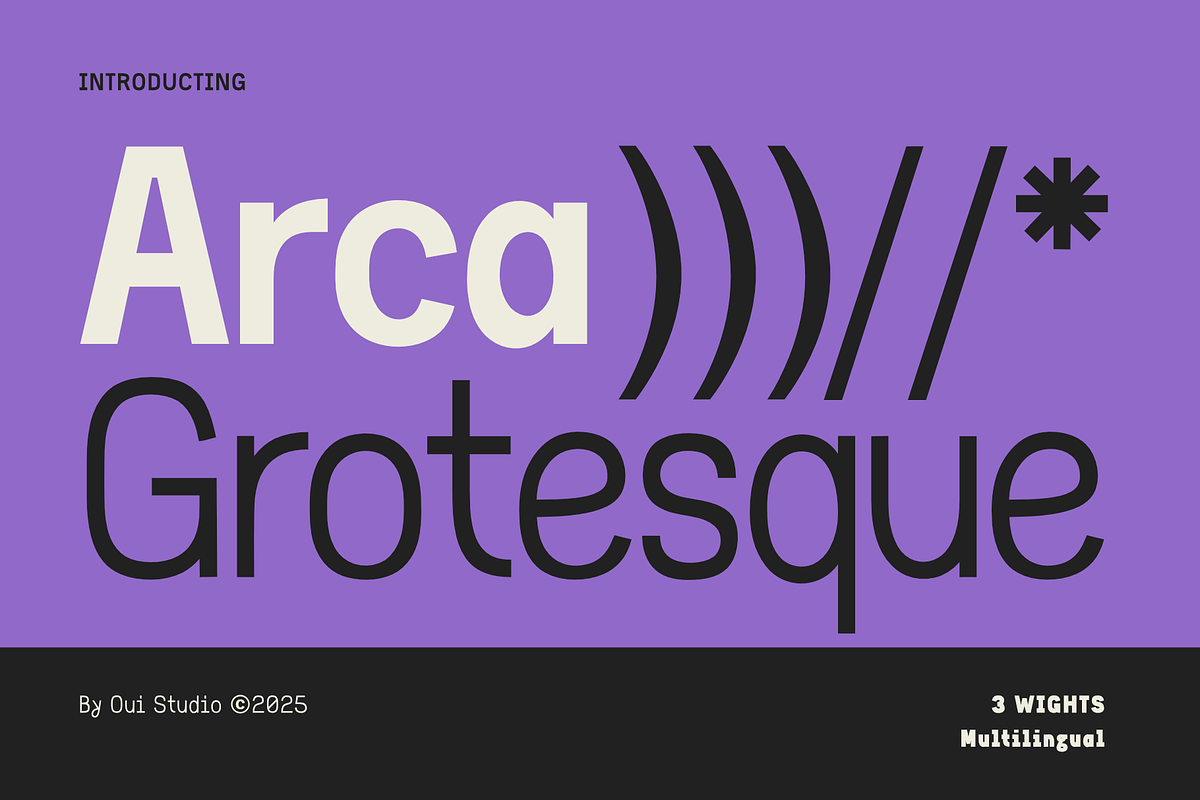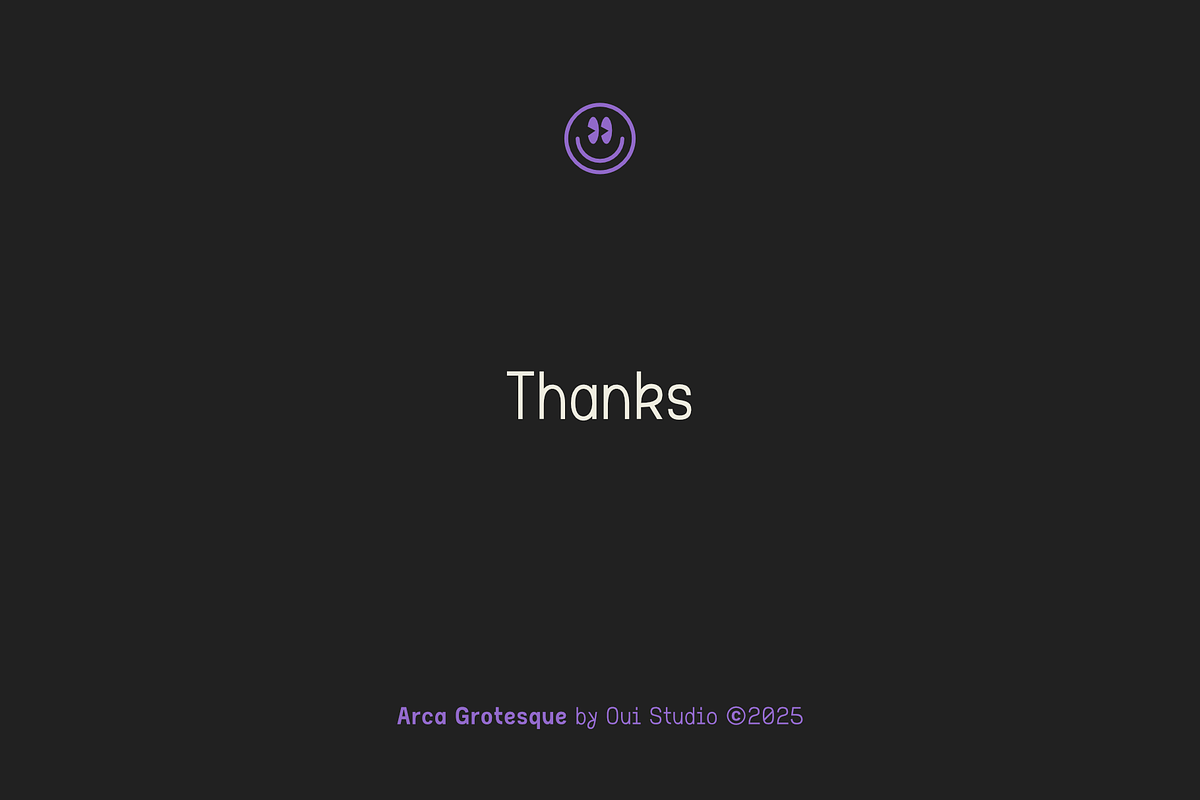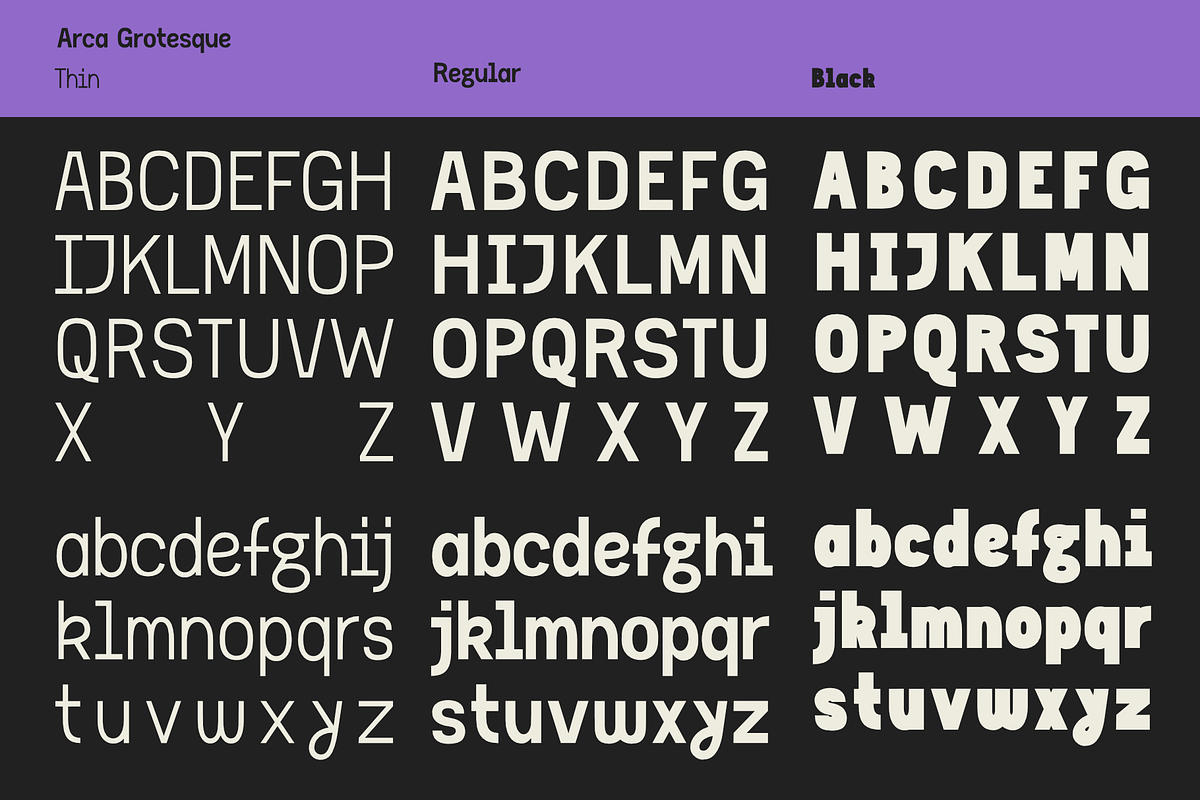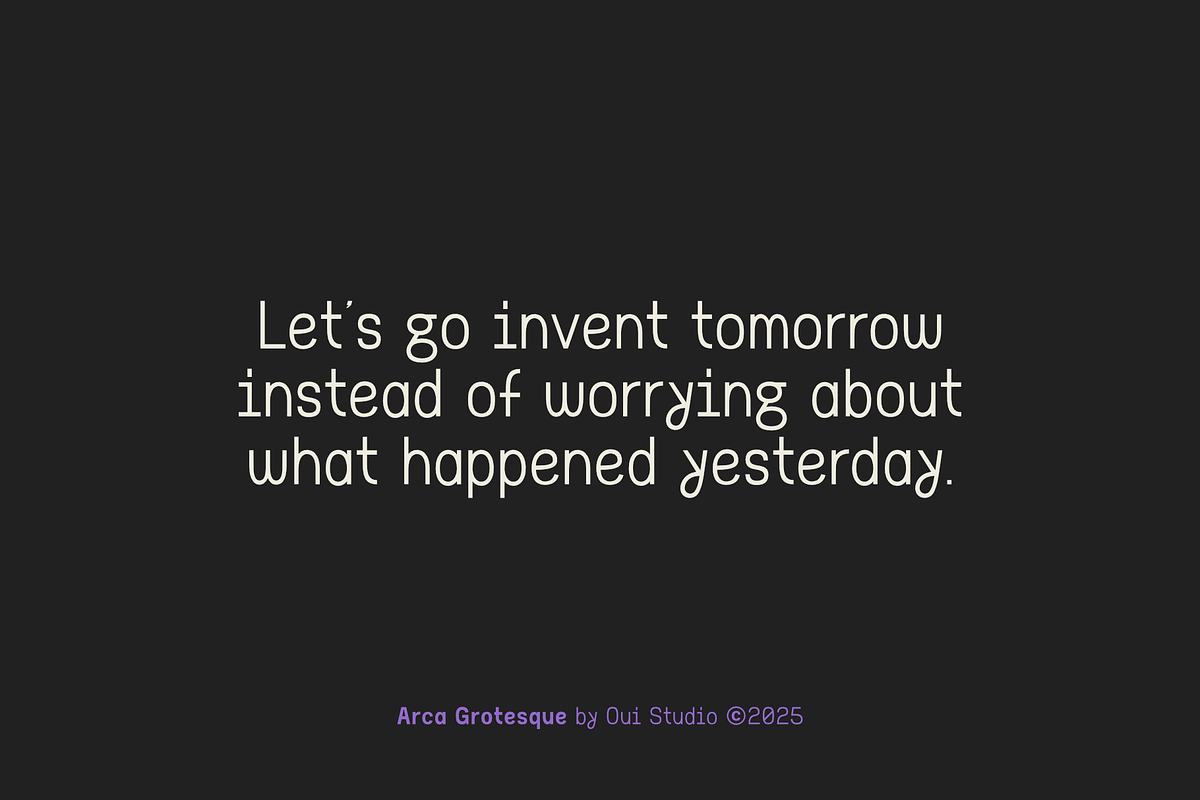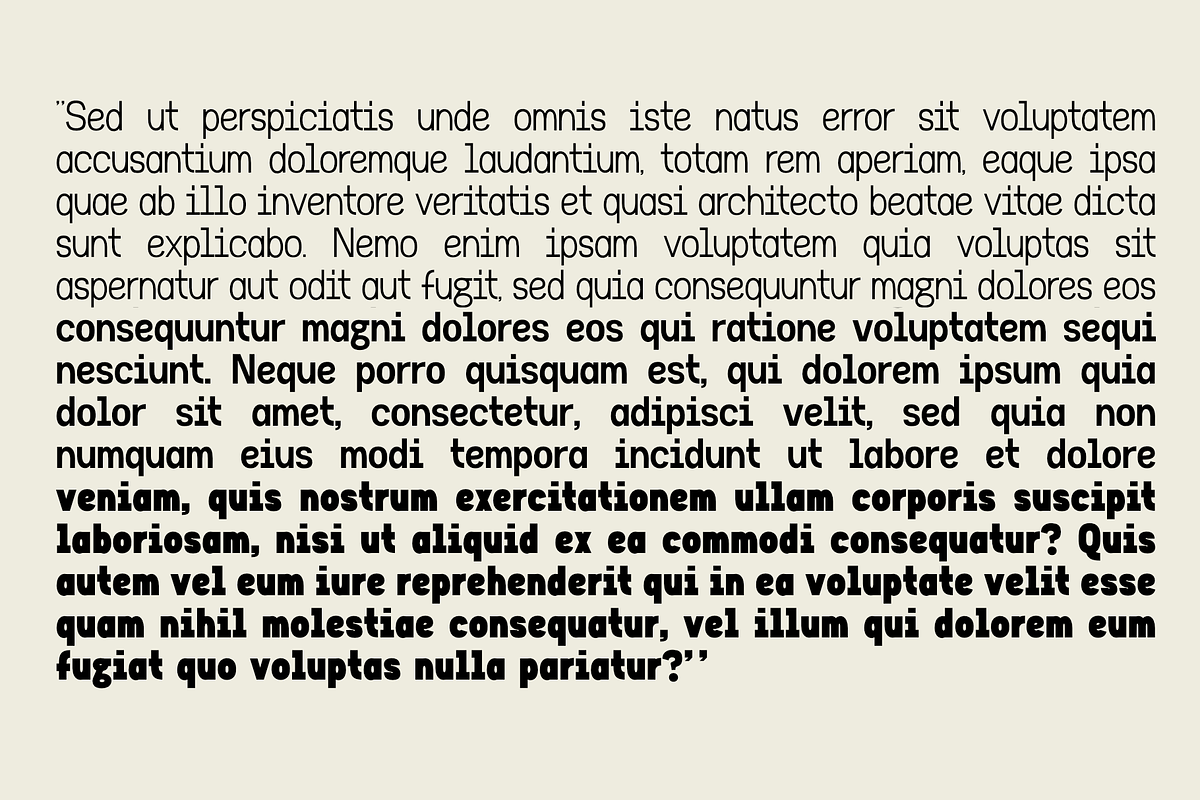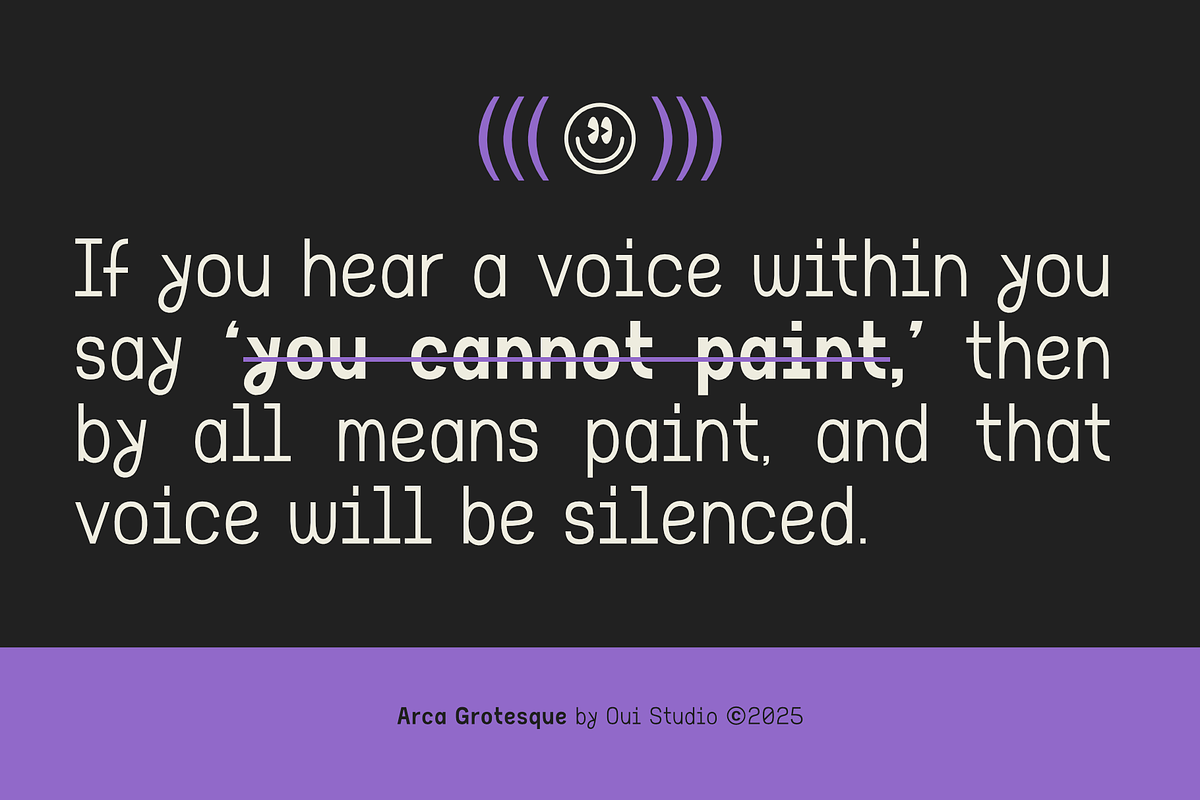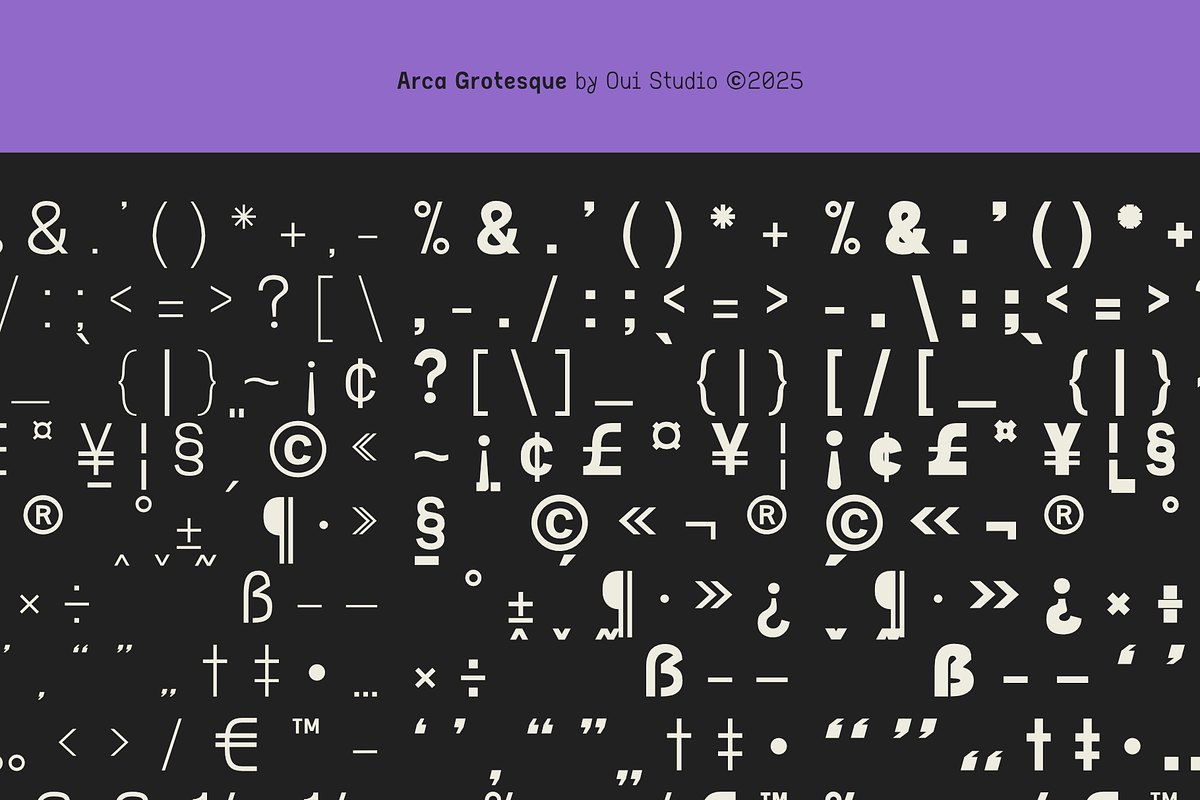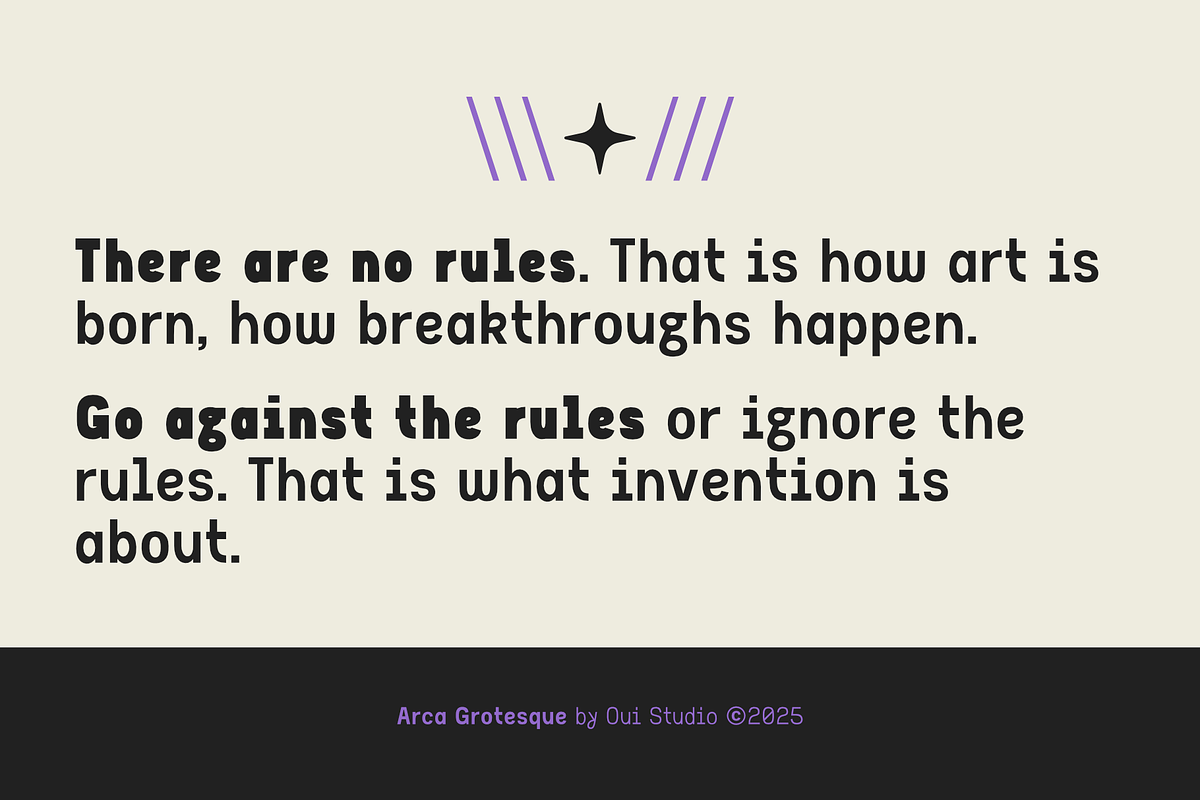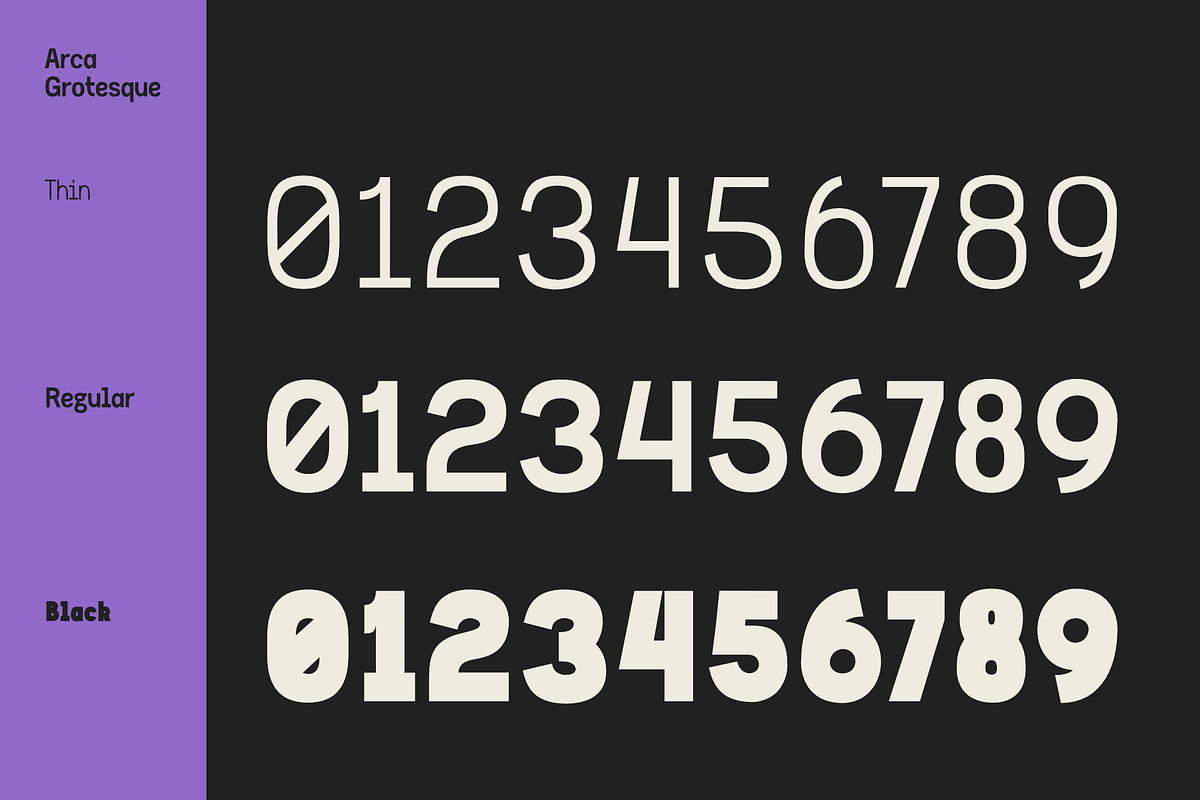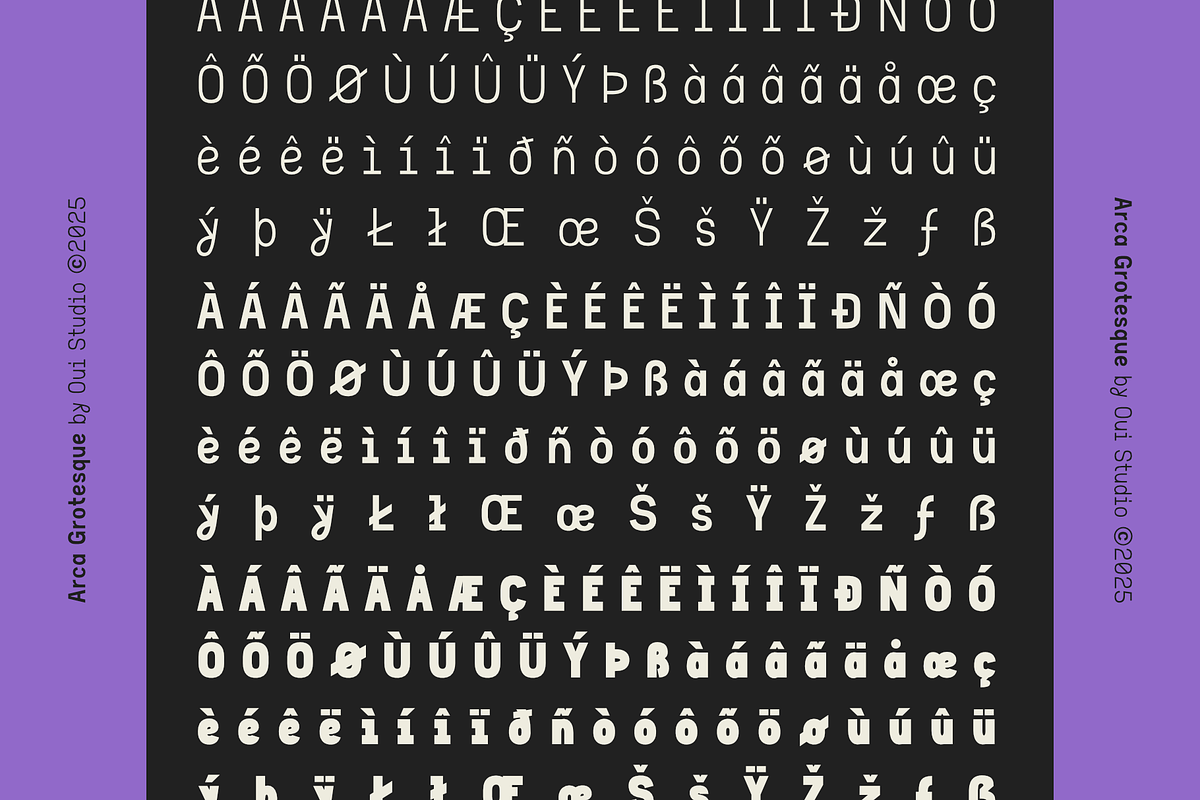
Arca Grotesque Modern Sans Serif
Arca Grotesque is a modern, versatile sans-serif font that brings together classic grotesque elements with contemporary precision.
Available in three distinctive weights—from an ultra-thin, refined option to a commanding black—the font offers a dynamic range that adapts to various design needs.
The thin weight provides a light, airy touch perfect for subtle text or delicate headlines, while the bold black weight delivers a strong visual impact for standout titles and branding.
Each weight maintains clean lines, balanced proportions, and a geometric simplicity that ensures excellent legibility across both print and digital platforms.
This nuanced design makes Arca Grotesque an ideal choice for projects seeking a harmonious blend of elegance and modernity.